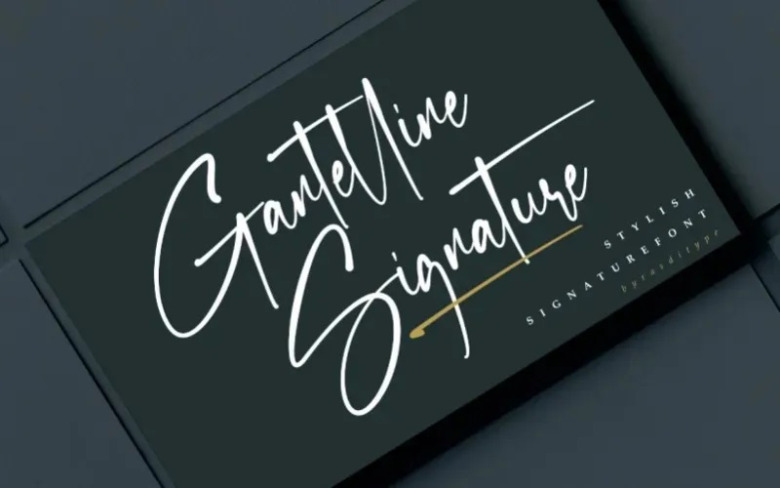
Gantelline Signature Font is a beautiful and flexible handwritten typeface. It is a magnificent choice for business card designs, wedding invitations, banner ads, and more.
Gantelline Signature Font